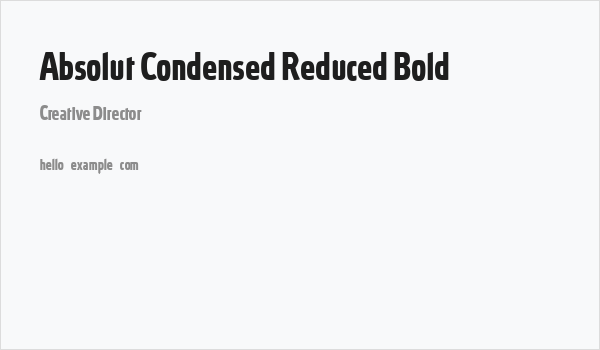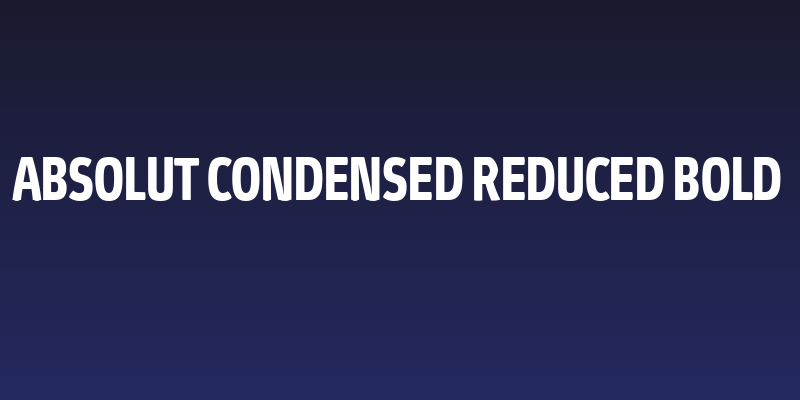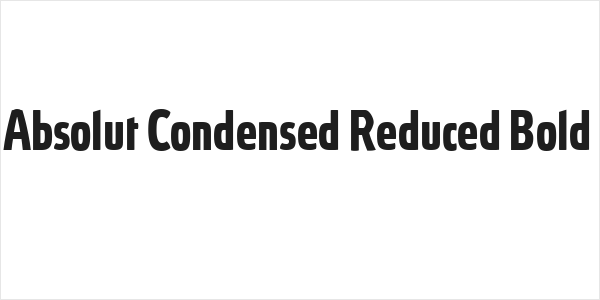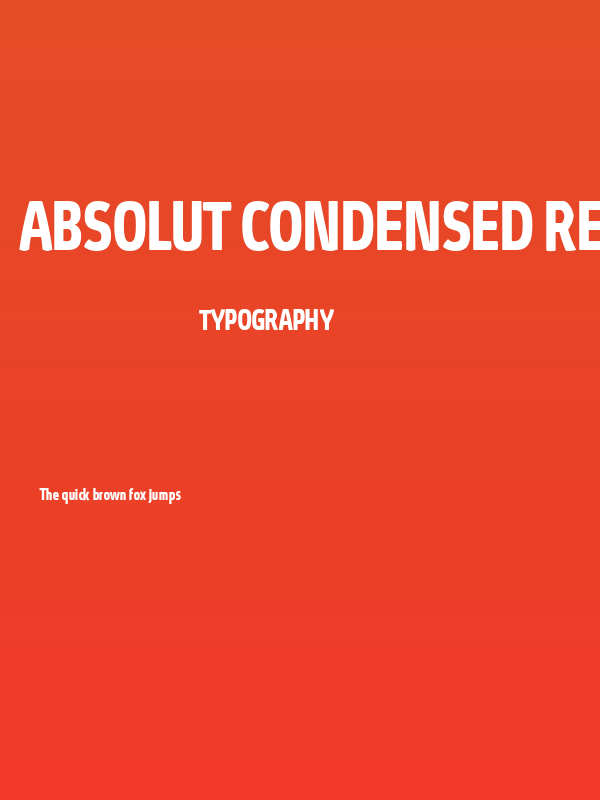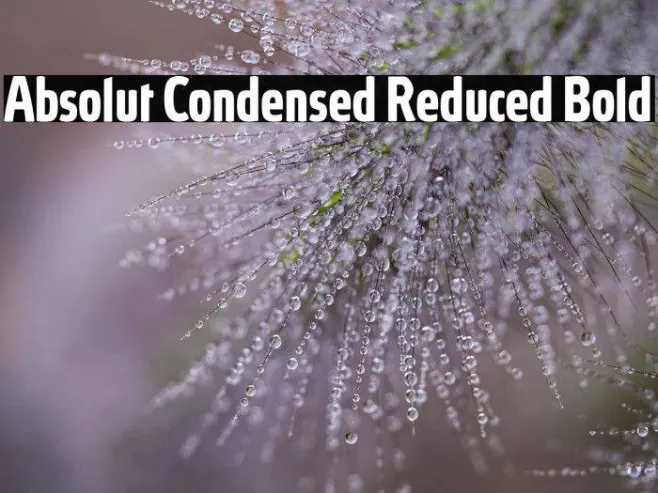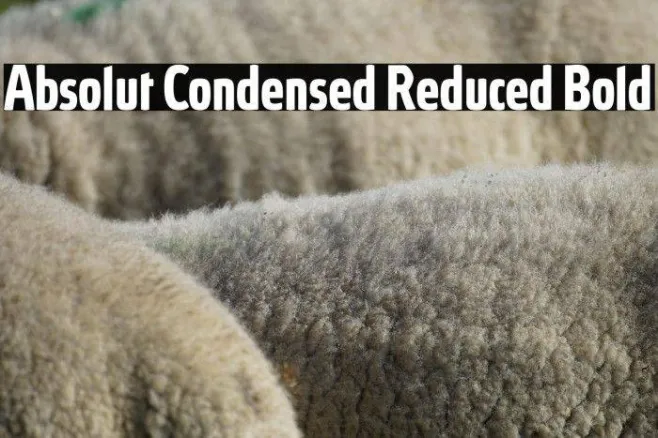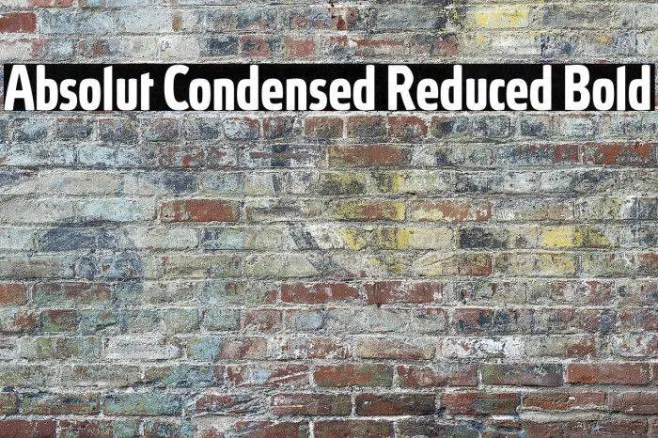
Absolut Condensed Reduced Bold Font
Absolut Condensed Reduced Bold Description
This font features a bold and condensed style, characterized by its strong and impactful presence. The uppercase and lowercase letters are designed with a uniform stroke width, giving it a modern and clean look. The characters are tightly spaced, enhancing its compact appearance. This font is ideal for making a statement, with its boldness ensuring visibility and readability even from a distance. The rounded edges of the letters add a touch of softness to the otherwise robust design, making it versatile for various applications.
| Proposed Projects | Ideal for headlines, posters, and branding materials where a strong visual impact is needed. |